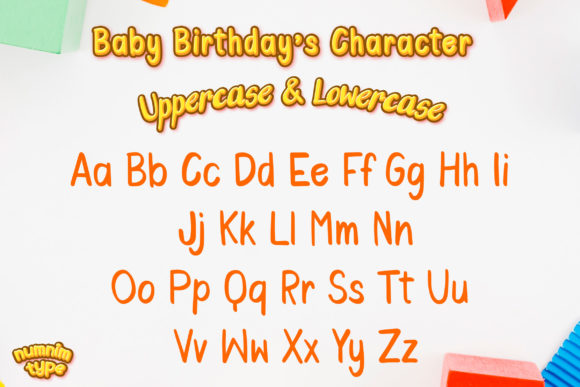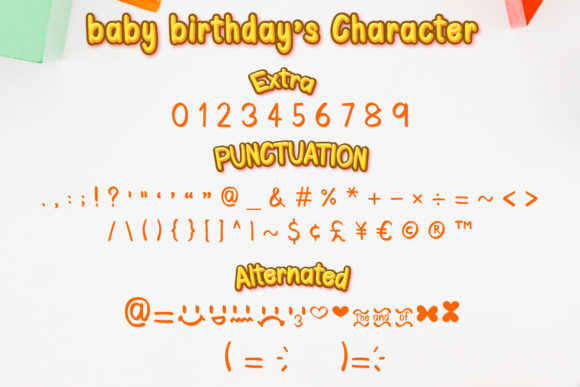
Baby Birthday Font
db-ku.com - Script & Handwritten -- Baby Birthday is a joyful and delicate handwritten font with cute doodle elements. This font is perfect for holiday letters as well as children themed designs, especially when combined with bright colors.